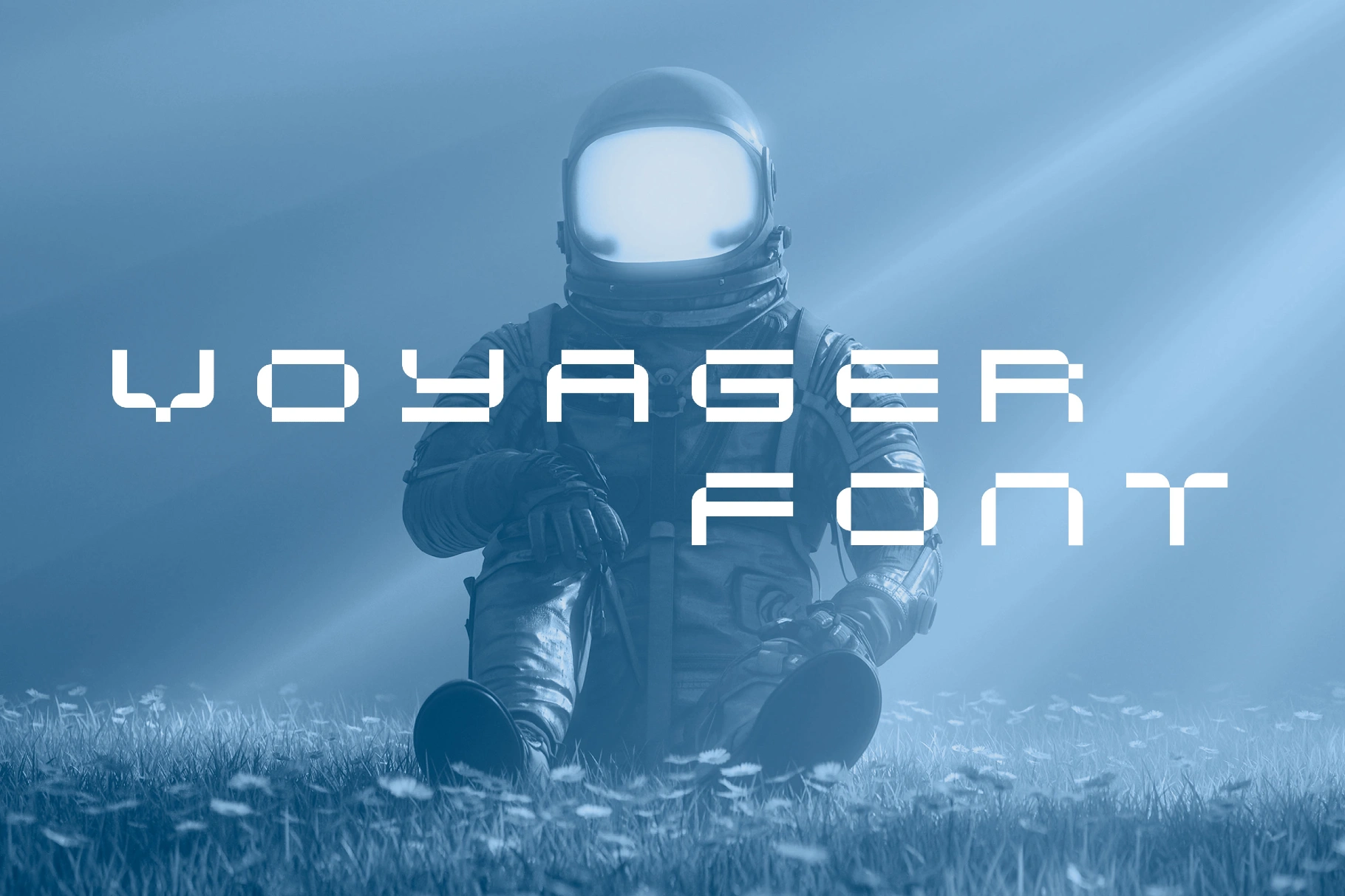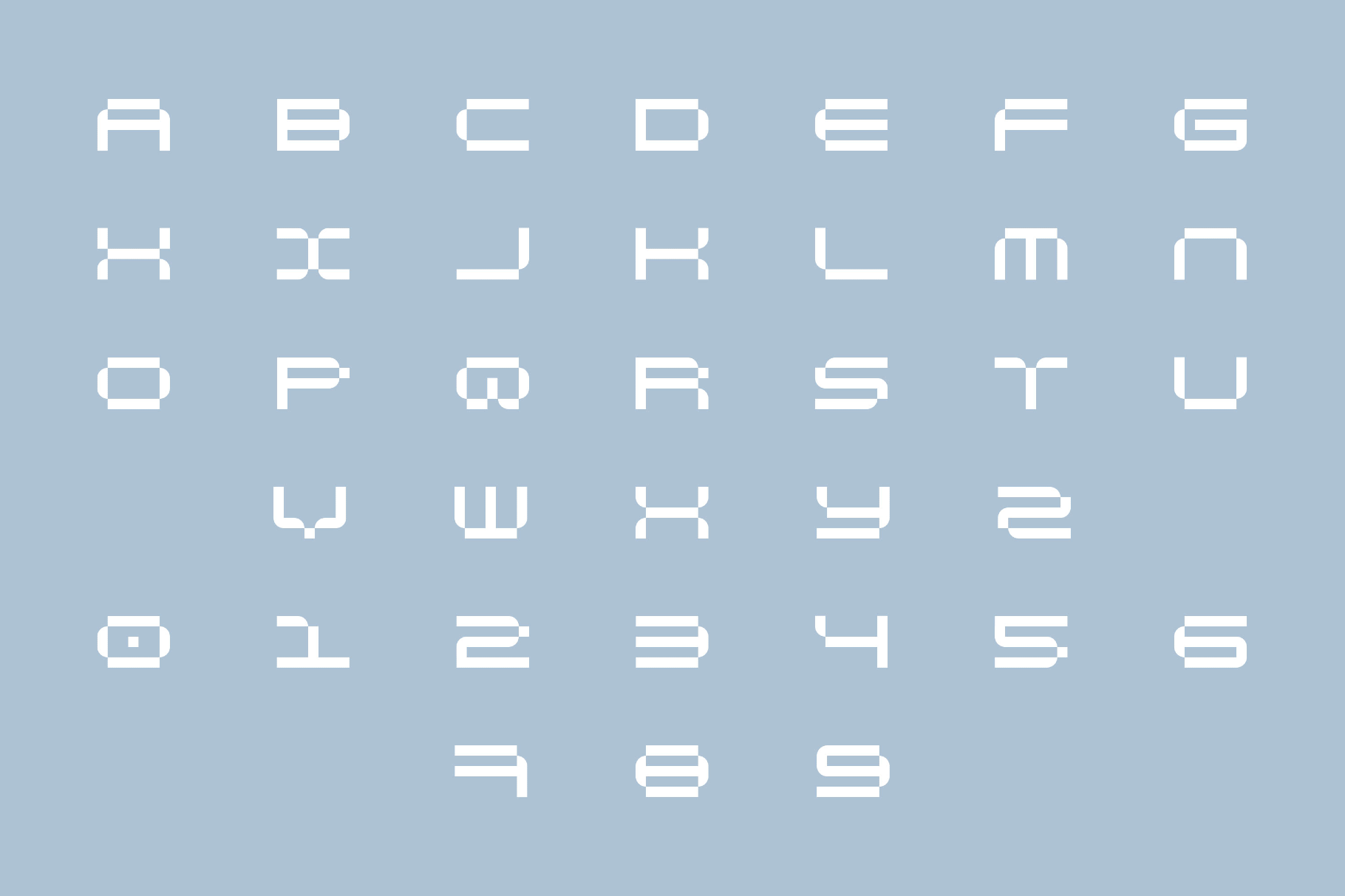
Voyager Font
Voyager is an energetic yet elegant font with sci-fi charm, inspired by old space novels and mission insignias. Its sleek geometric forms give it a cosmic mood, somewhere between a badge for an interstellar expedition and a transmission sent far past Earth.
All that makes it a great fit for poster headlines, album covers, game menus, tech branding, book jackets, concept decks, motion graphics, and editorial openings.
- uppercase letters A–Z;
- basic punctuation.